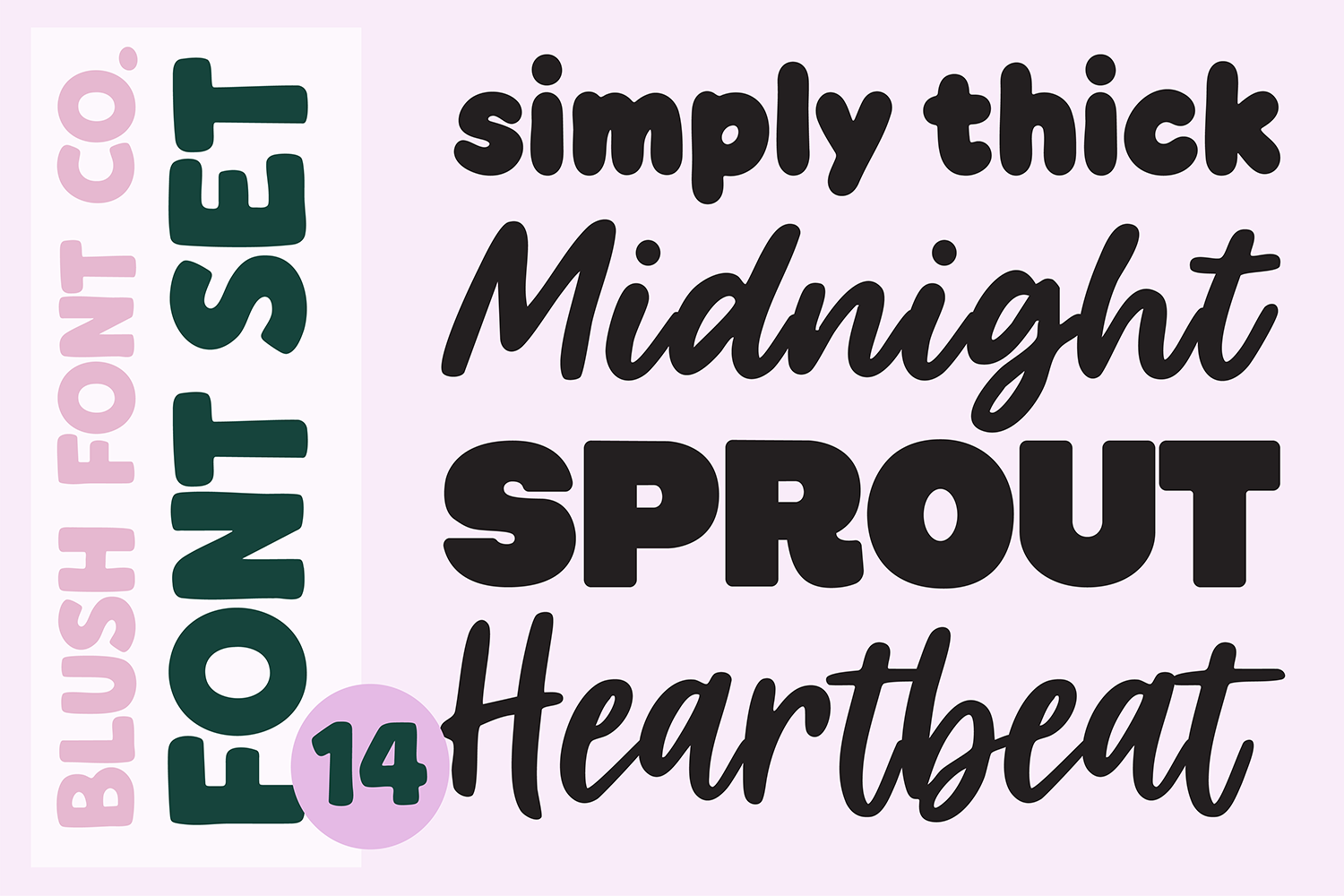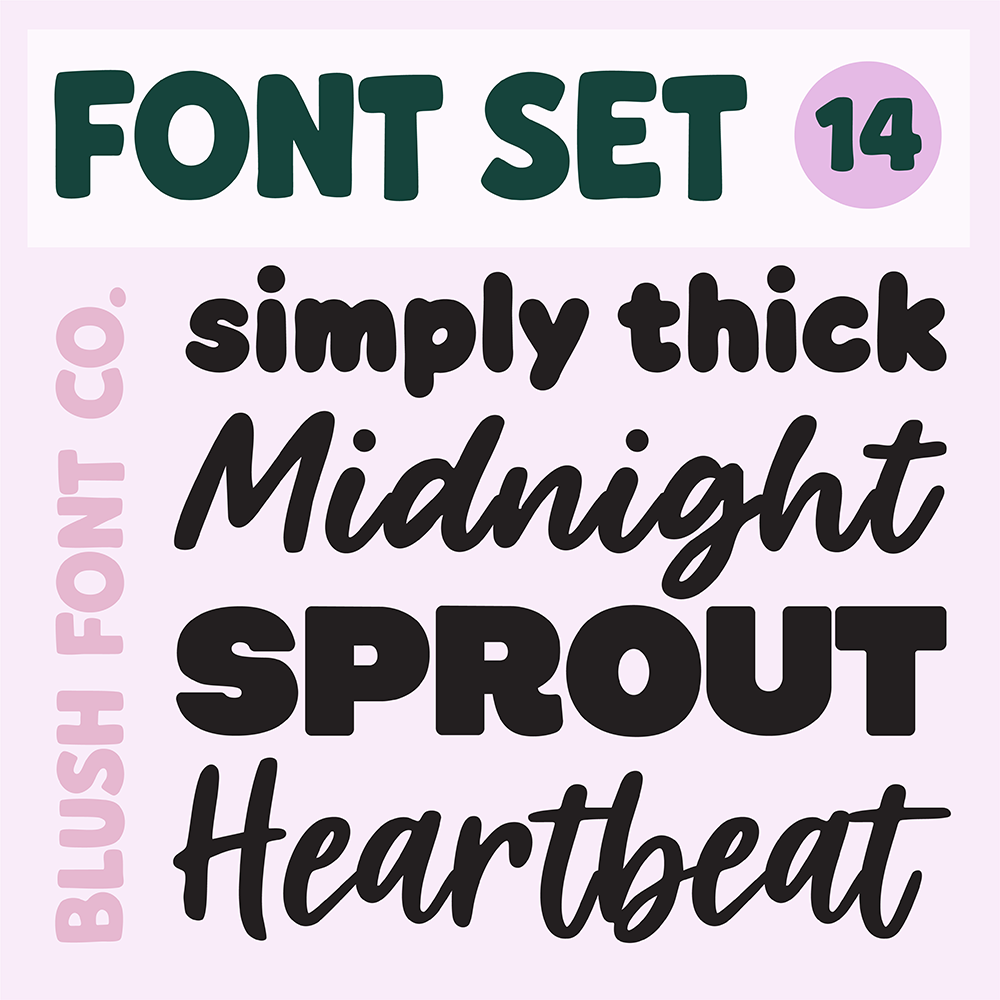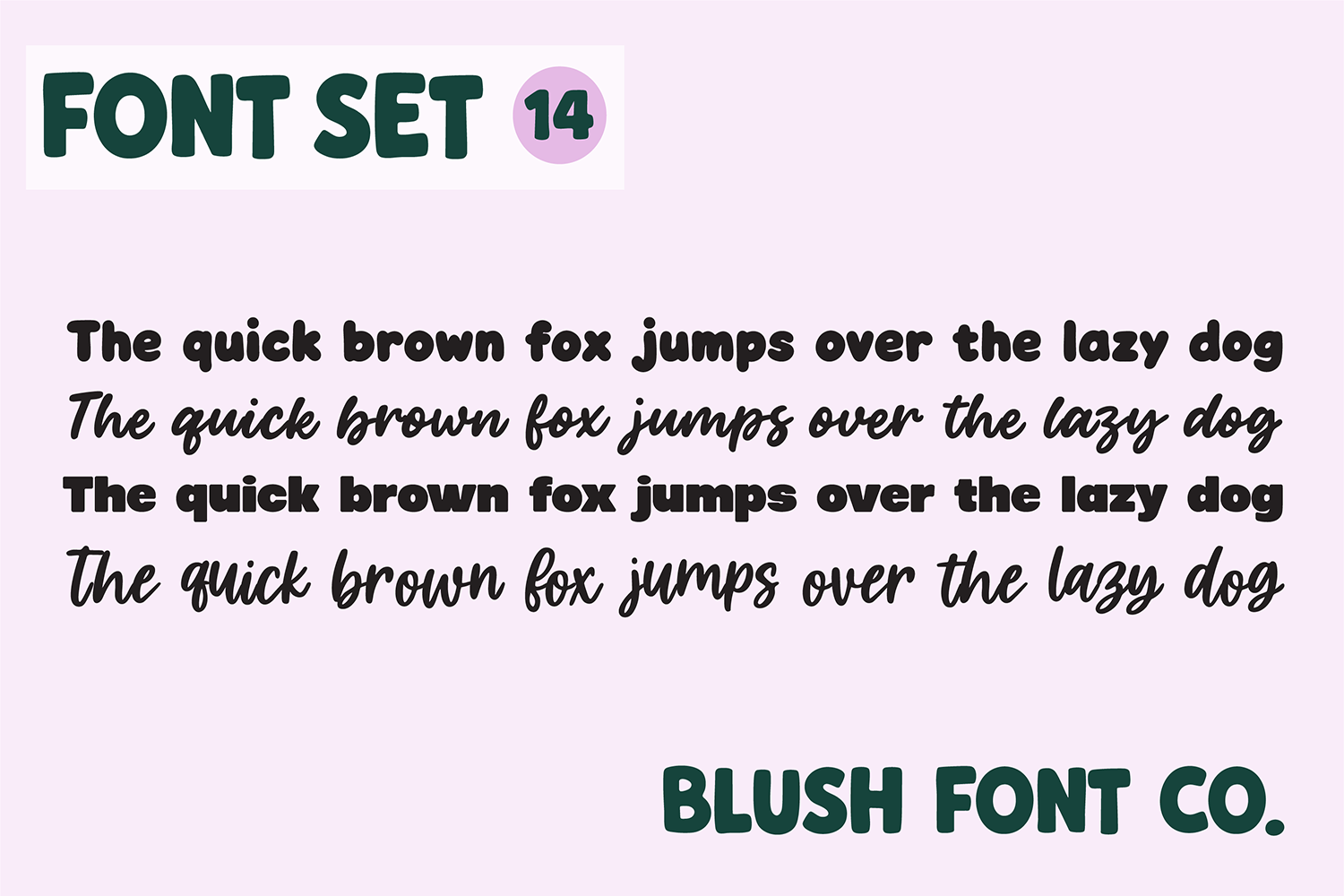
BFC FONT SET 14
Small bundle of my recent fonts! These are cute script and bold fonts. These will work perfect for Cricut projects.
Simply Thick
Sprout Garden
Heartbeat (Regular)
Midnight Martini